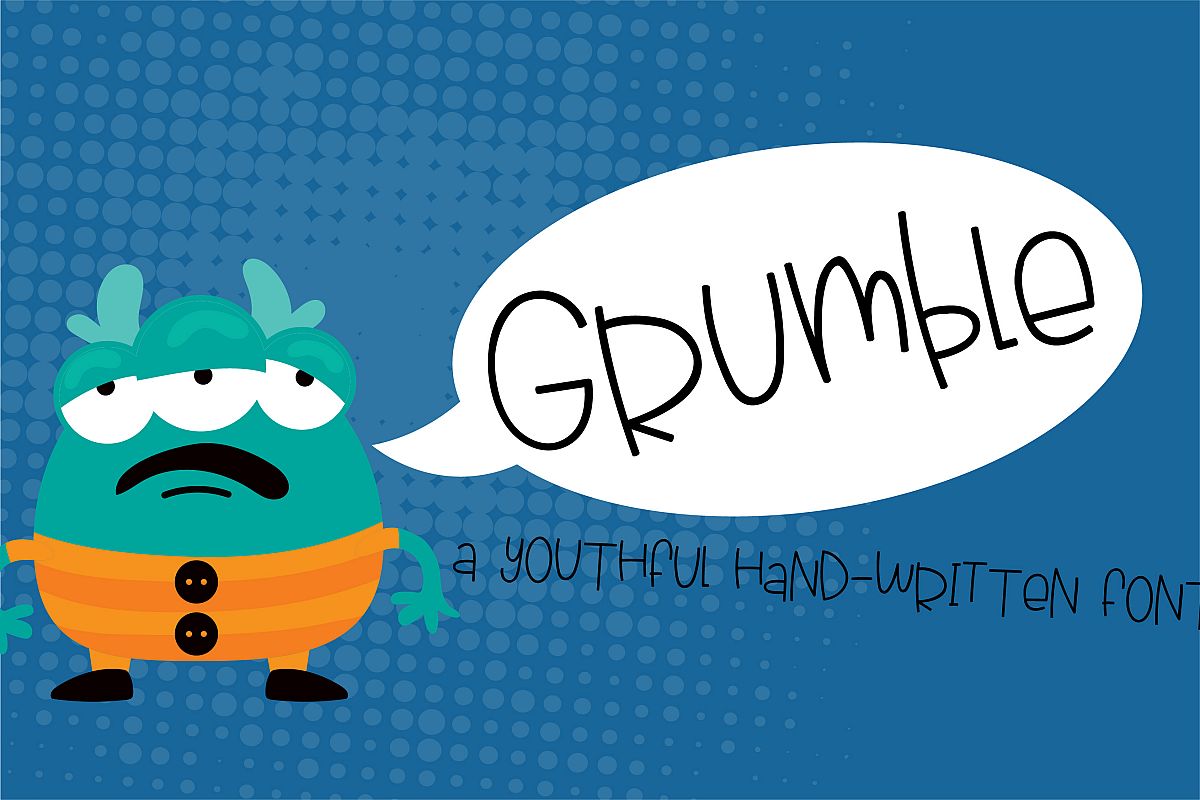
PN Grumble
This hand-crafted, casual font is what we like to call a quasi-script...part script, part print. This fun font packs a few extra details to keep things interesting.